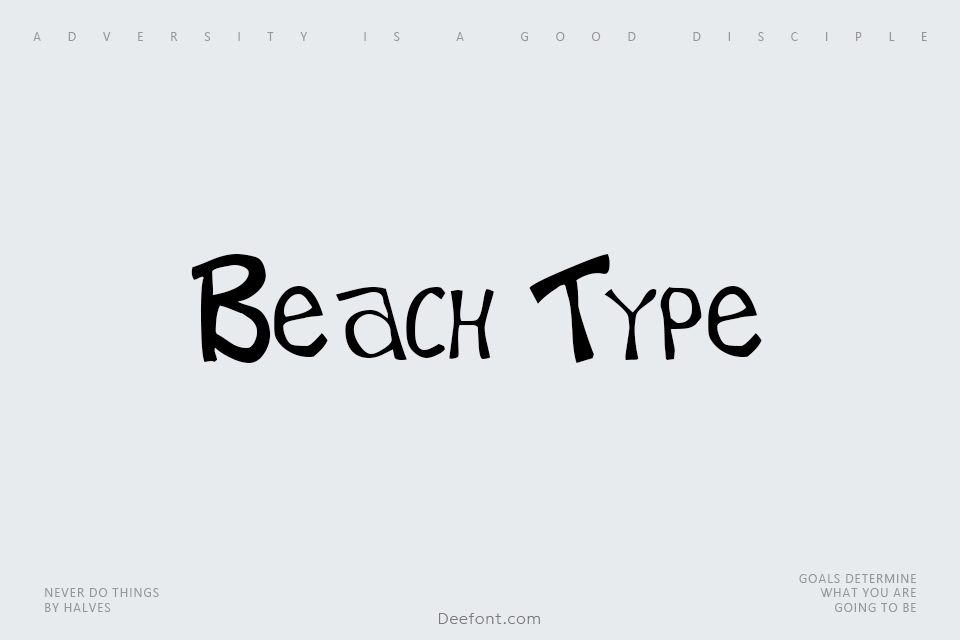
Beach Type Font
Beach Type is a playful and casual display font designed to evoke the relaxed, carefree spirit of beach culture. With its friendly and approachable letterforms, this typeface is perfect for creating eye-catching headlines, vacation-themed designs, and summer event promotions. The font combines whimsical character with readability, making it ideal for posters, social media graphics, invitations, and any creative project that needs a touch of coastal charm and summer vibrancy. Its decorative style brings warmth and leisure to contemporary design work.
Designed by:David A. Mason